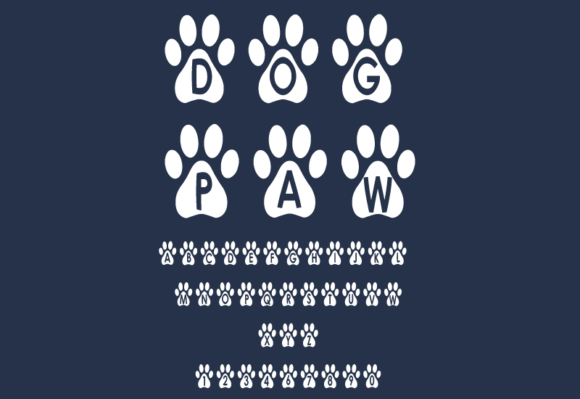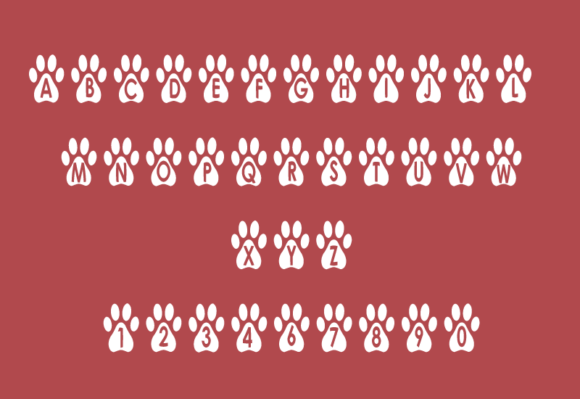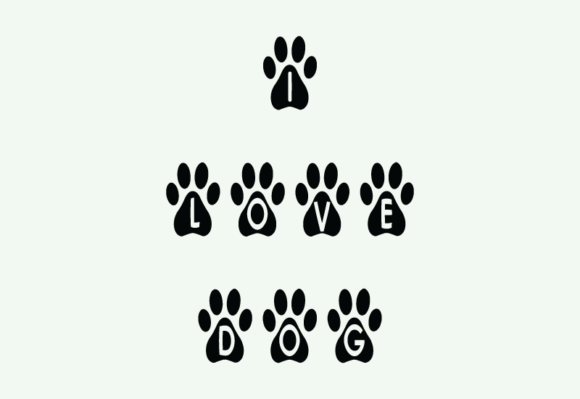
Discover the Paw-some Power of Dog Paw Font
Imagine you’re on a creative high, brainstorming ideas for your next project, and suddenly, a spark of inspiration hits you. You envision a modern, sleek logo that exudes fun and playfulness. That’s exactly what Dog Paw Font can bring to your design world. This simple yet effective font is designed to add a touch of whimsy to your projects, making it perfect for logos, brand designs, headlines, and more.
As a designer, you’re always on the lookout for unique and versatile fonts that can elevate your work. Dog Paw Font fits the bill, offering a digital and modern aesthetic that’s sure to impress. With its versatility and ease of use, you can confidently add it to your projects and watch your designs come to life in a whole new way.
Dog Paw Font Key Features
- Font Family: Dog Paw Font is a unique, hand-drawn font designed to resemble a dog’s paw.
- Unique Characteristics: Features a playful, whimsical design that captures the essence of a dog’s paw, perfect for pet-related designs, children’s products, and more.
- Character Set: Includes a comprehensive character set, including uppercase and lowercase letters, numbers, punctuation marks, and special characters.
Designer Review: Dog Paw Font
Overall, I think the Dog Paw Font has some great qualities, but it also has some limitations that prevent it from being a top-notch font.
- The font is playful and fun, perfect for pet-related businesses or children’s products.
- The dog paw design is well-executed and can add a cute touch to text-based designs.
- The font is highly customizable, with a wide range of size and color options.
- The font is quite simplistic and may not be suitable for more formal or professional designs.
- The dog paw design can be overwhelming if used excessively, so it’s best to use it in moderation.
- The font is not suitable for use in small sizes, as the details of the dog paw design can become lost.
In conclusion, the Dog Paw Font is a fun and playful addition to any design, but it’s not without its limitations. With careful use and consideration, it can add a cute touch to text-based designs. However, it’s not the best choice for more formal or professional designs.
Use Dog Paw Font for pet-related designs, such as dog tags, pet collars, or pet store logos.
Combine Dog Paw Font with other playful fonts to create a fun and whimsical design.
Use Dog Paw Font in a bold and bright color to make your design stand out.
Dog Paw Font is perfect for:
Pet-related businesses, such as pet stores or veterinary clinics.
Pet owners who want to create custom dog tags or pet collars.
Designers who want to add a playful touch to their designs.
Q: Can I customize Dog Paw Font to fit my design needs?
Yes, Dog Paw Font is a customizable font that allows you to adjust the size, color, and spacing of the font. You can also use font editing software to modify the font’s design and create custom variations.